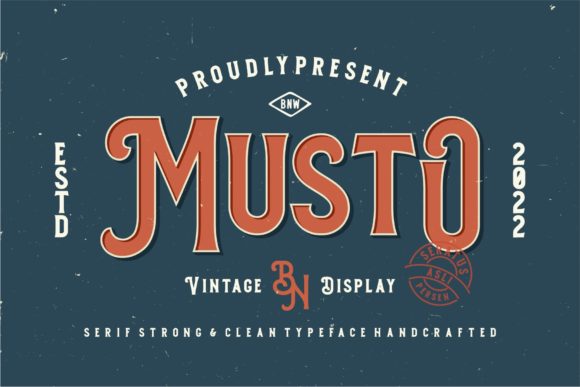
Unleash your creativity with Musto, the font that oozes vintage charm and contemporary elegance. Designed by the talented Benawa Studio, Musto is not just a font; it's a journey through time, blending the allure of yesteryears with the vibrancy of today.
Embark on an adventure where tradition meets modernity, where each letter dances across the screen, captivating your audience with its bold strokes and refined curves. Musto is the perfect font for Twitch labels, adding a touch of nostalgia to your streams and captivating your viewers with its distinct personality.
Dive into a world of endless possibilities with Musto, the ultimate choice for creating captivating logos, eye-catching posters, and stunning social media graphics. Its PUA encoding grants you effortless access to a treasure trove of glyphs and swashes, empowering you to unleash your imagination and craft designs that resonate with your audience.